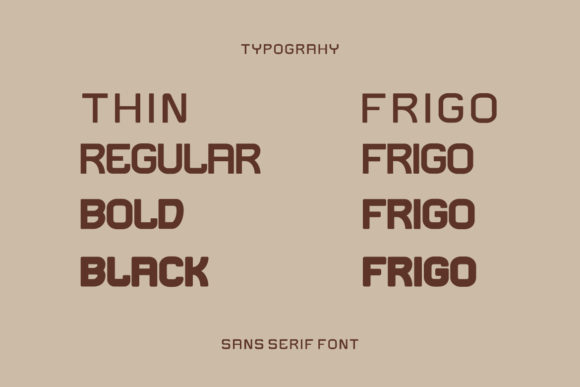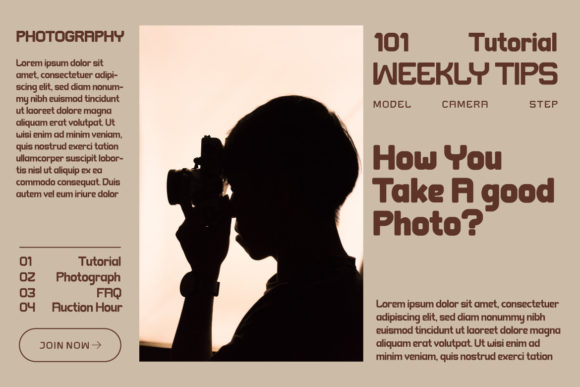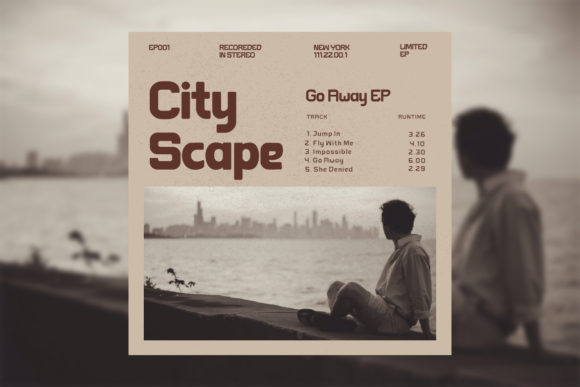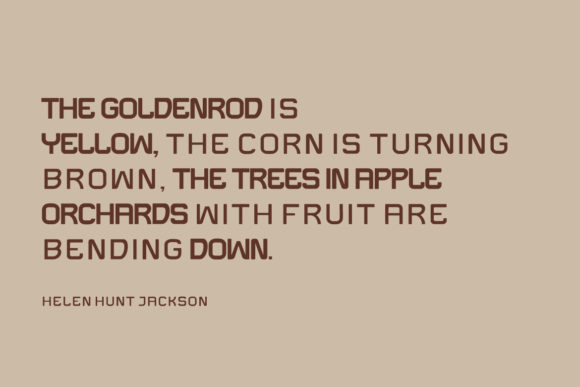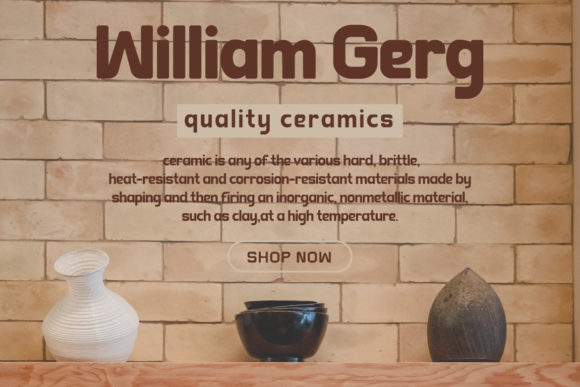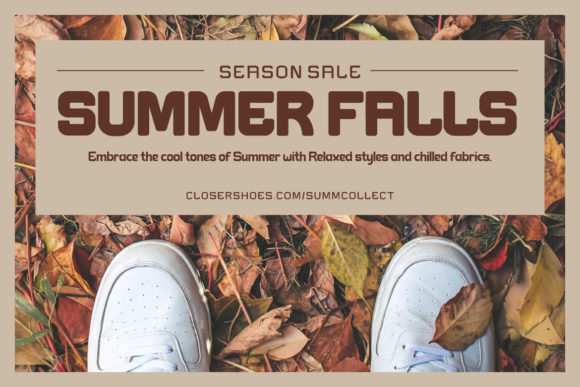
Introducing Frigo Font: The Cool and Bold Display Font You Need
Are you tired of using the same old fonts in your designs? Look no further than Frigo Font, a cool and bold display font that’s sure to elevate any creation. Whether you’re a designer, craft, or simply someone who loves to dabble in typography, Frigo Font is an incredible asset to have in your font library.
The Versatility of Frigo Font
One of the best things about Frigo Font is its versatility. No matter the topic or theme of your design, Frigo Font can adapt to fit seamlessly. Whether you’re working on a modern and sleek project or something more playful and whimsical, Frigo Font’s bold and cool style is sure to make a statement.
What Makes Frigo Font Stand Out
So, what makes Frigo Font stand out from other display fonts on the market? For starters, its unique and modern design is sure to grab attention. The font’s bold lines and sleek curves give it a cutting-edge feel that’s perfect for designers who want to create something fresh and exciting.
Another thing that sets Frigo Font apart is its readability. Even at larger sizes, the font remains clear and easy to read, making it perfect for headlines, titles, and other applications where legibility is key.
How to Use Frigo Font in Your Designs
Frigo Font is incredibly easy to use, even for those who are new to design or typography. Here are a few ways you can incorporate Frigo Font into your designs:
- Headlines and Titles: Frigo Font is perfect for headlines and titles, where its bold and attention-grabbing style can really shine.
- Logos and Branding: The font’s unique and modern design makes it a great choice for logos and branding projects.
- Posters and Flyers: Frigo Font is a great choice for posters and flyers, where its bold style can really make a statement.
- Digital Media: The font is also perfect for digital media, including social media graphics, website headers, and more.
Why Designers and Crafters Love Frigo Font
Frigo Font has quickly become a favorite among designers and crafters, and for good reason. Here are a few reasons why:
- Easy to Read: Frigo Font is incredibly easy to read, even at larger sizes.
- Versatile: The font can be used for a wide range of projects and themes.
- Unique: Frigo Font’s modern and bold design sets it apart from other fonts on the market.
- High-Quality: The font is made from high-quality materials, ensuring that it will look great in any design.
In conclusion, Frigo Font is an incredible asset to any font library. Its cool and bold display style makes it perfect for a wide range of projects, from modern and sleek designs to playful and whimsical ones. With its versatility, readability, and unique design, Frigo Font is sure to elevate any creation. So why wait? Add Frigo Font to your library today and start creating amazing designs!
Tips and Tricks for Getting the Most Out of Frigo Font
Here are a few tips and tricks for getting the most out of Frigo Font:
- Experiment with Different Sizes: Frigo Font looks great at a variety of sizes, so don’t be afraid to experiment and find the size that works best for your design.
- Pair it with Other Fonts: Frigo Font pairs well with a variety of other fonts, so try pairing it with some of your favorite fonts to create a unique and interesting design.
- Use it for Headlines and Titles: Frigo Font is perfect for headlines and titles, where its bold and attention-grabbing style can really shine.